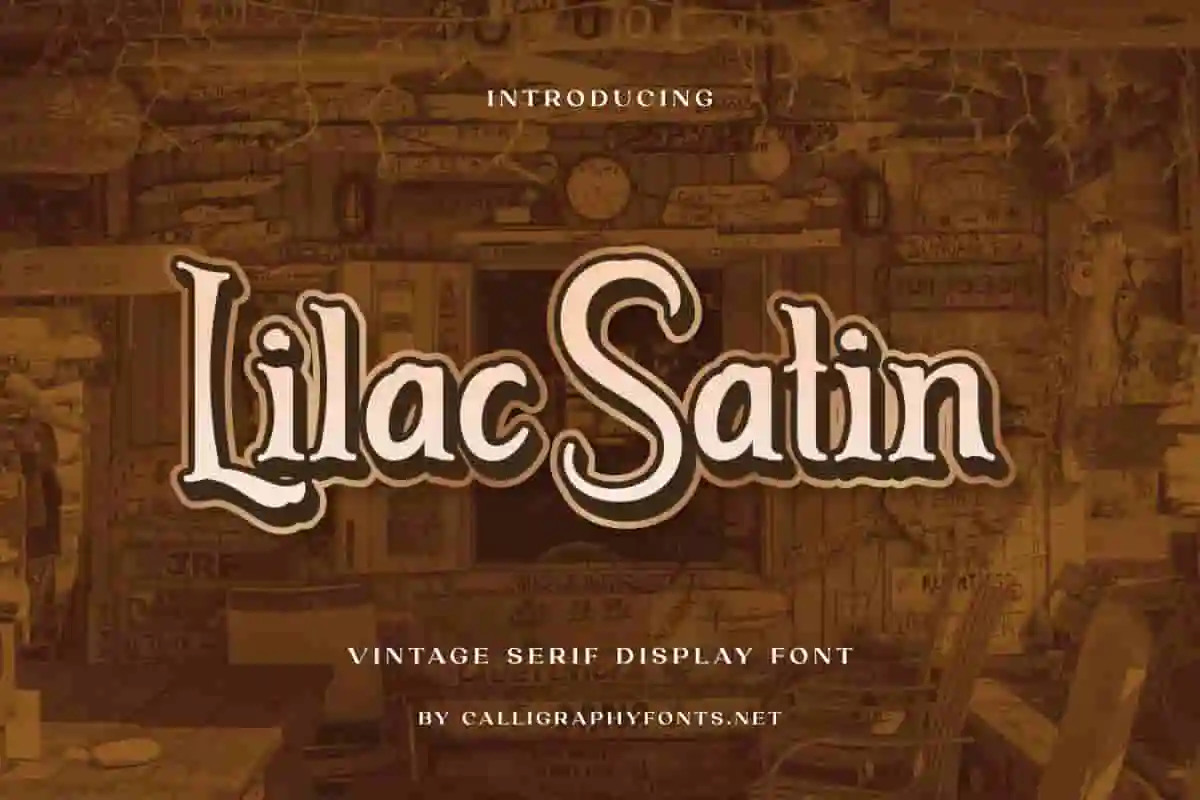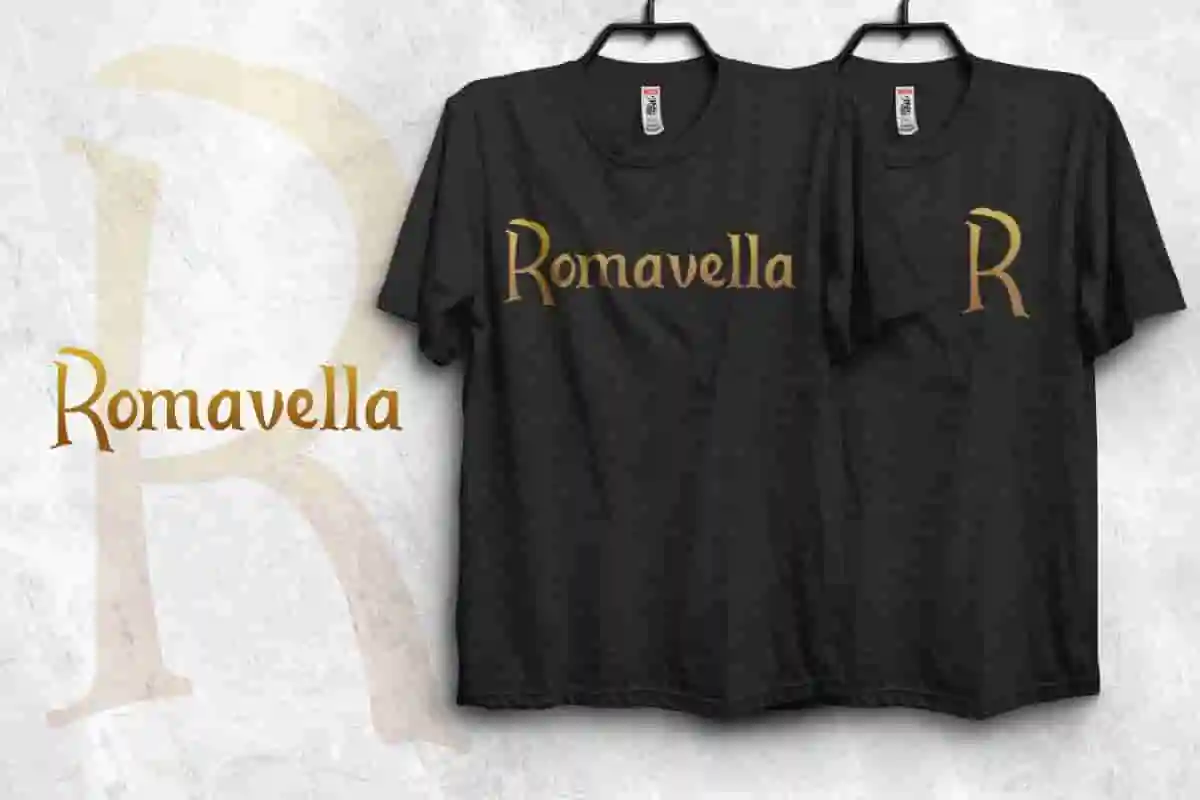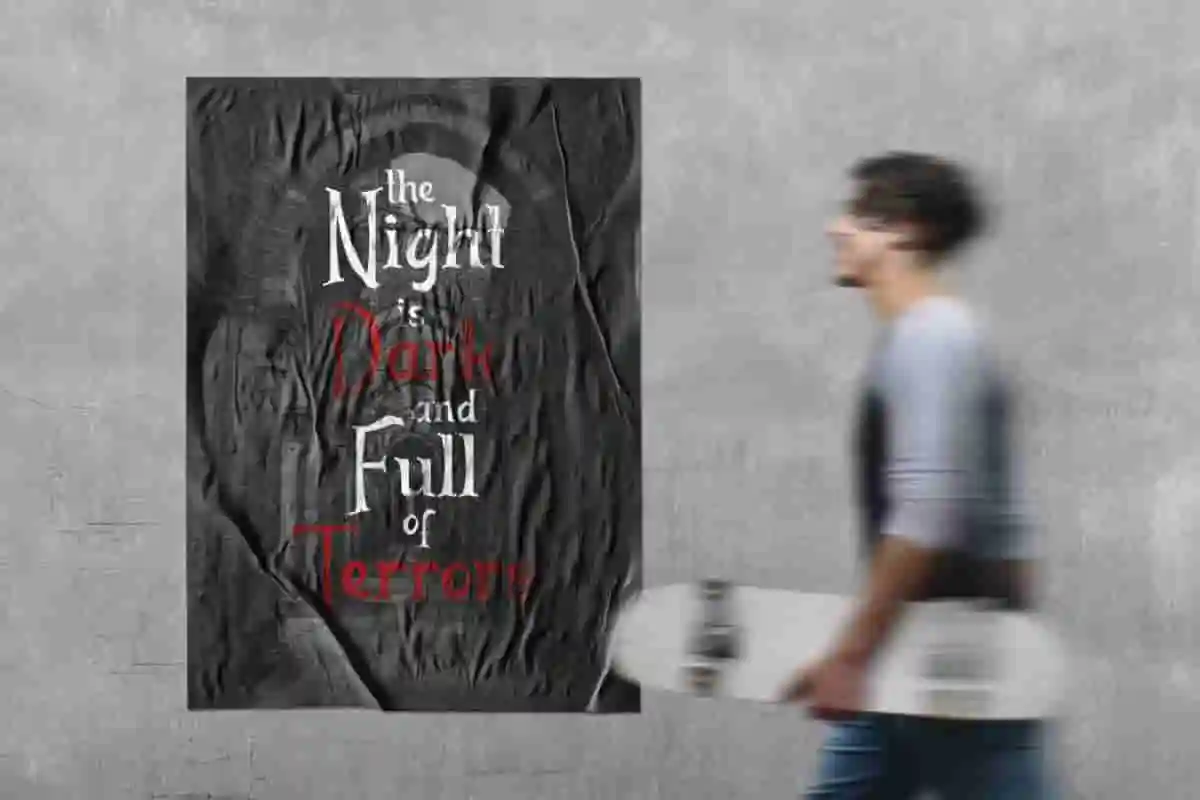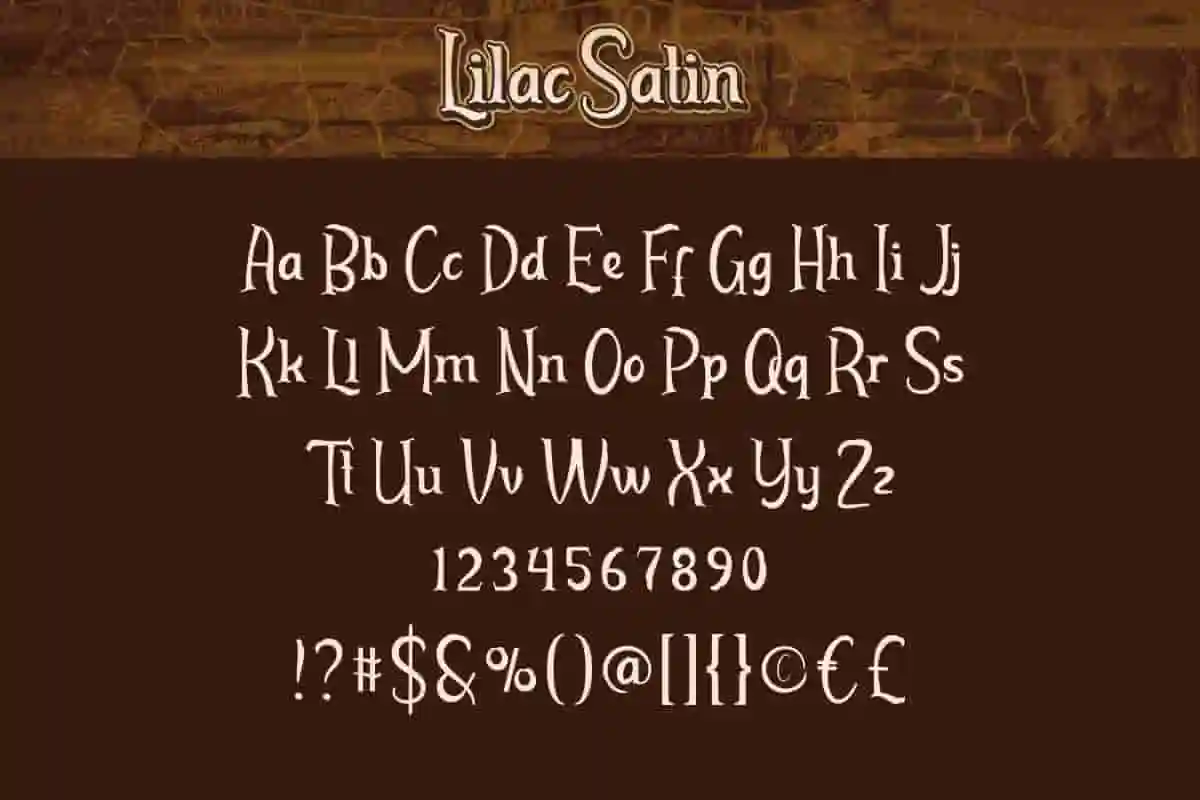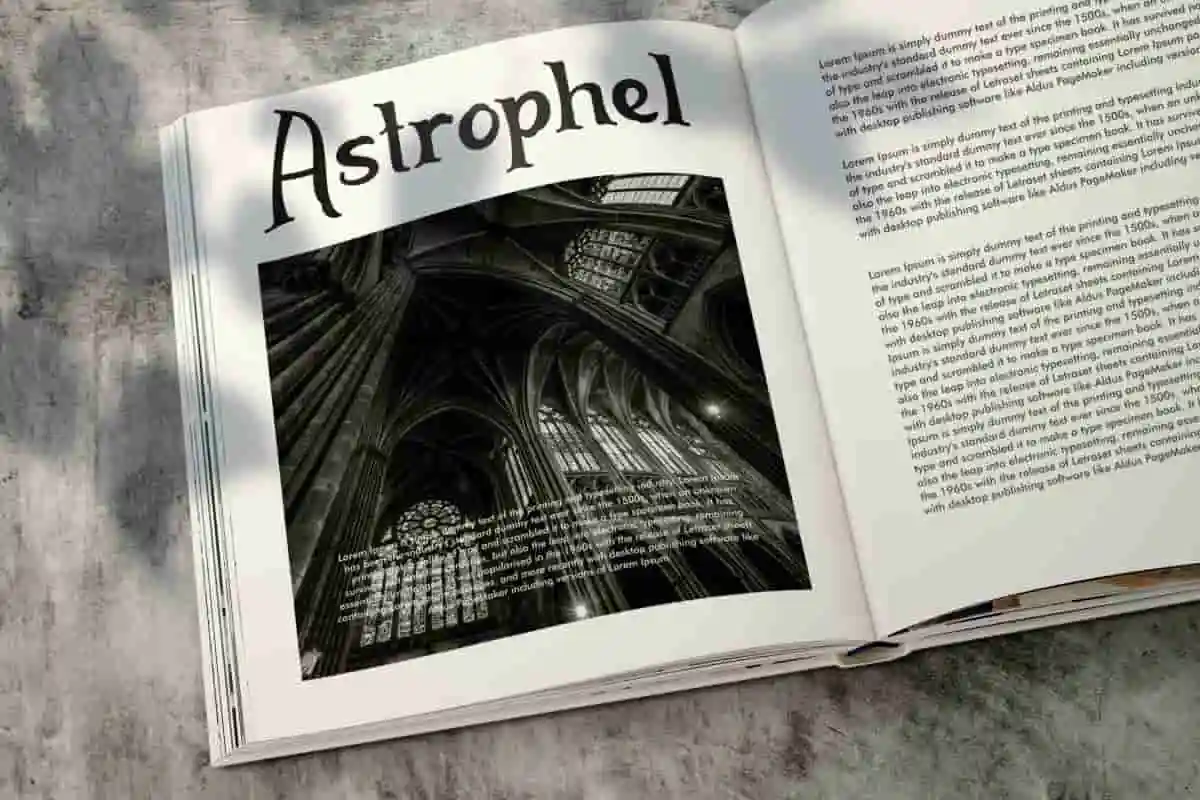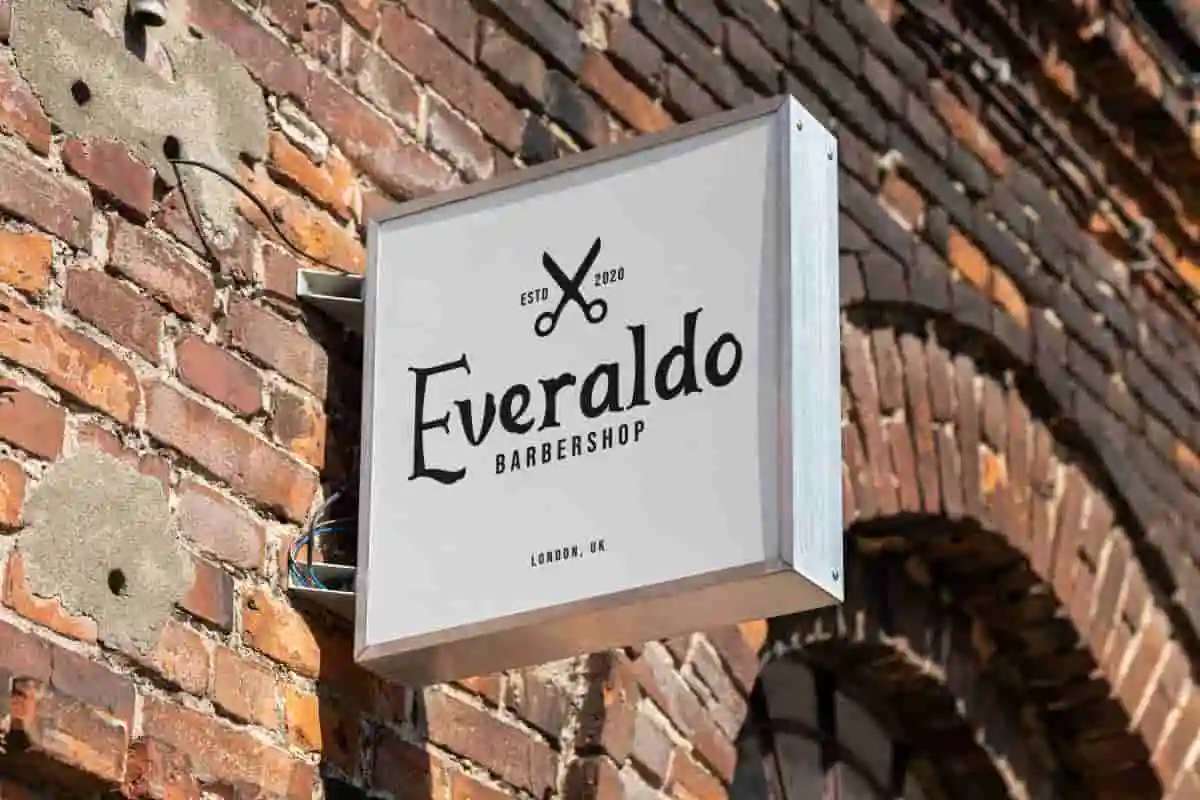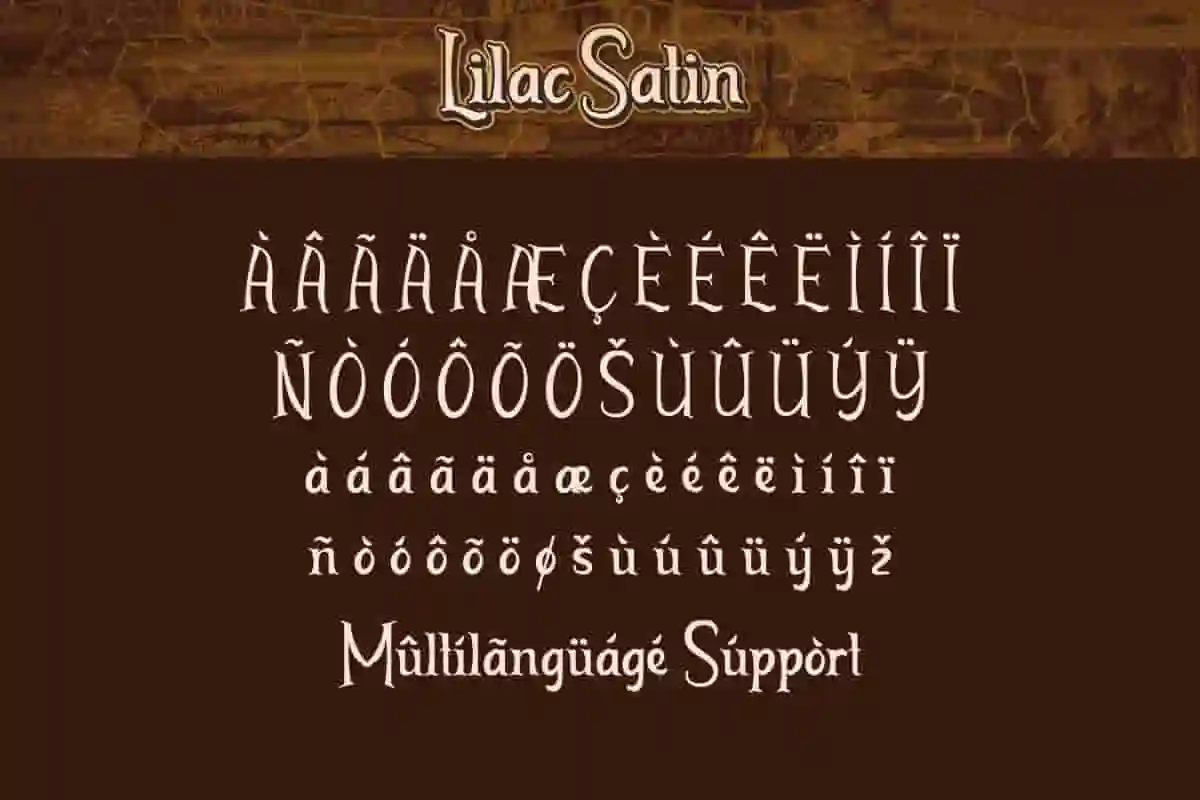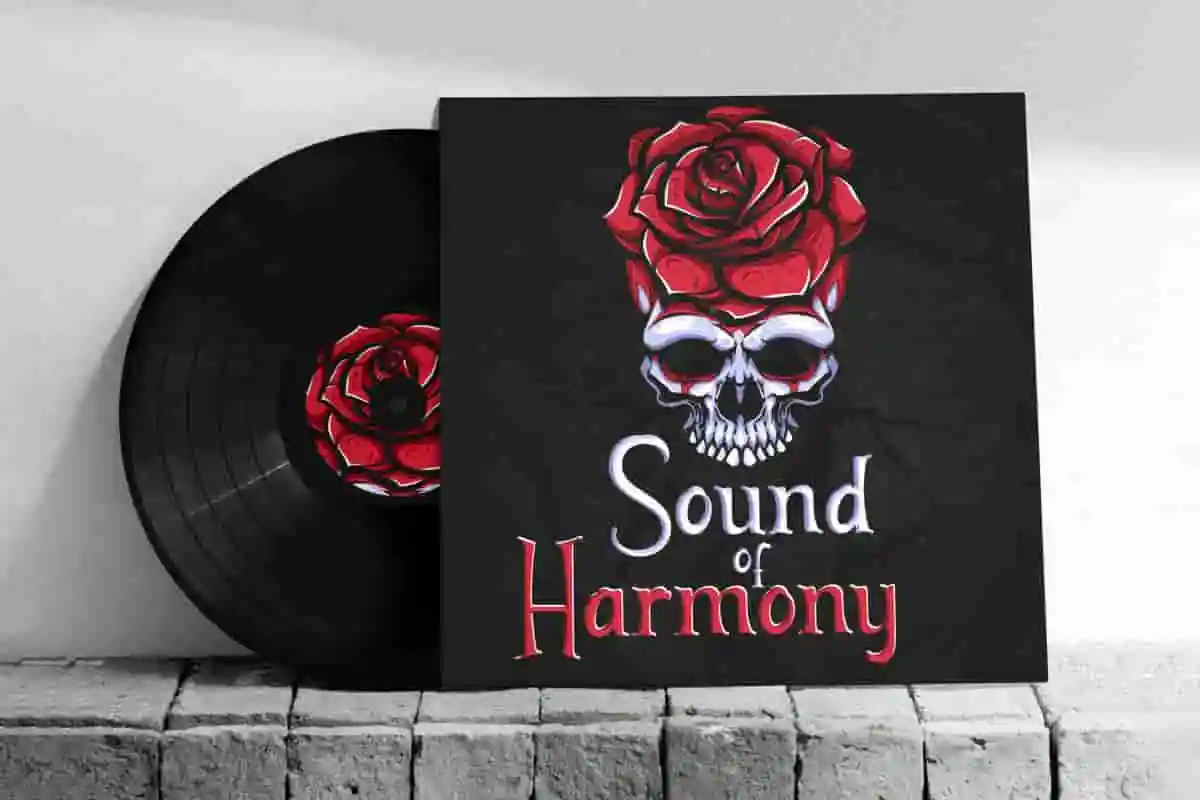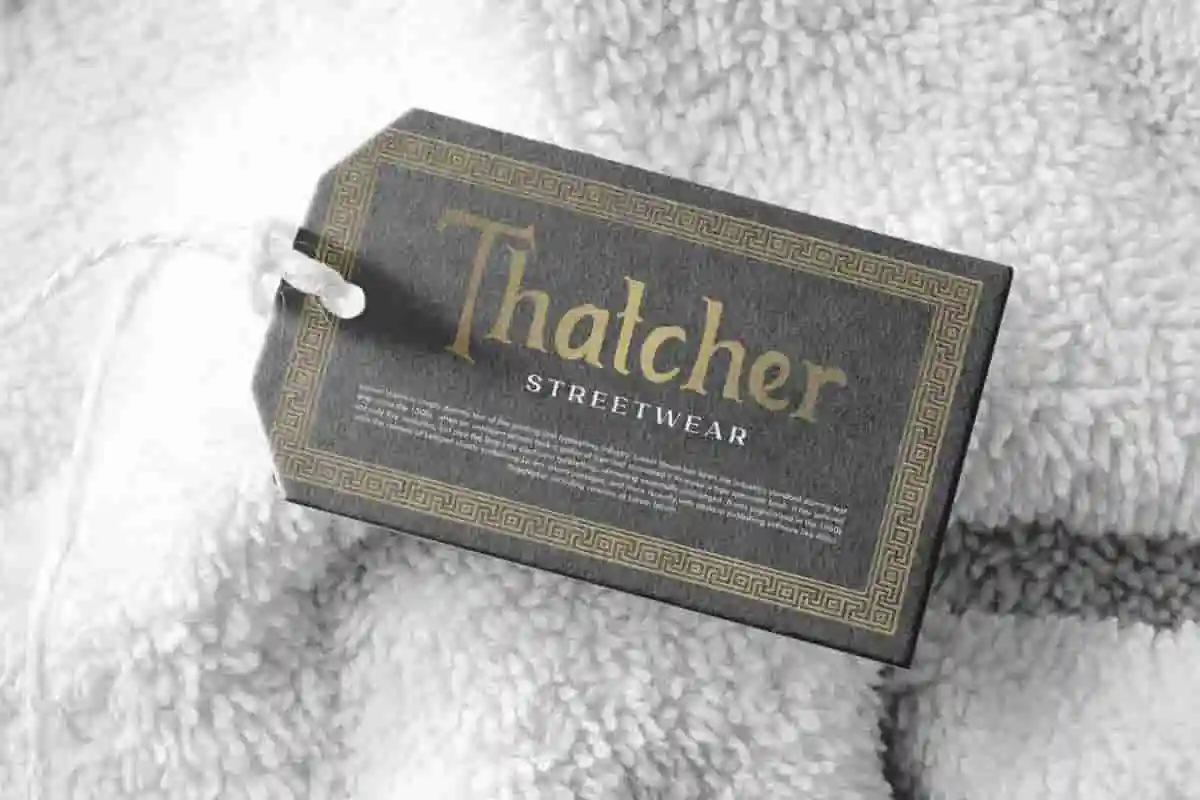
Lilac Satin Display Font
Lilac Satin Font is a unique vintage display font exclusively from CalligraphyFonts. This font would be great for games, movies, barbershop, café, fashion, label, movie, poster, writer, and everything that needs a touch of classic harmony.
Lilac Satin Font is a unique vintage serif display font created by Calligraphy Fonts. This font has a gothic shape with an authentic vibe that would be perfect for projects, such as label, literary header, rock music poster, signage, stationery, t-shirt design, vinyl cover, and anything that needs a classic yet mysterious touch to your creative projects.
Lilac Satin is a beautiful and modern display font crafted for elegance, femininity, and sophistication. With its soft curves and graceful letterforms, this font adds a luxurious touch to any project—perfect for designers, creatives, and brand owners who want to create with style and class.
Lilac Satin is a modern display font that brings beauty, grace, and softness to your creative work. Designed with smooth curves and a touch of luxury, this typeface is perfect for projects that need a feminine, high-end feel. Lilac Satin is a stunning display font designed to add sophistication, femininity, and charm to your visual storytelling.
Introducing Lilac Satin, a modern display font that captures the beauty of soft curves, romantic energy, and refined style. Thoughtfully designed with smooth strokes and graceful letterforms, this font adds a luxurious and feminine touch to every project.
- Stylish & Elegant Display Letters
Lilac Satin Font will be perfect for creative industries, such as: action movie, barbershop, clothing, gaming, history museum, musician, sport, etc. This font is basically a serif that is artistically made different, looks perfect and makes it easy for readers.